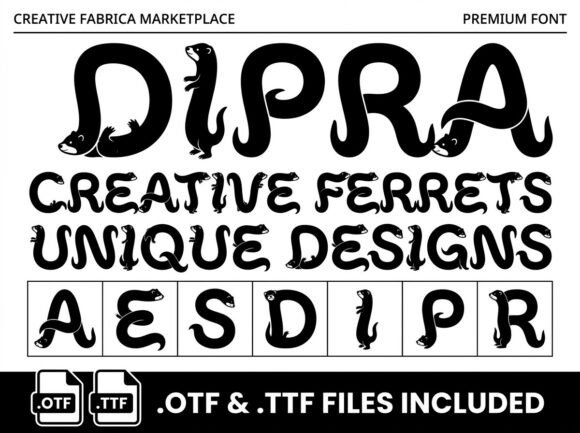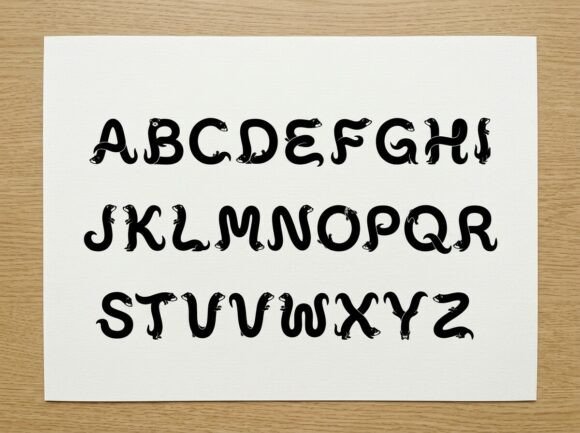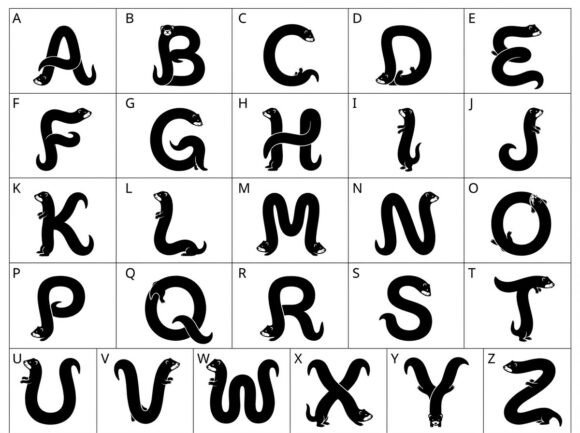
Celebrate the Playful Spirit of Nature with Dipra Font
Are you looking for a unique display font that combines typography with whimsical illustration? Look no further than Dipra, a bold, rounded typeface that artfully integrates the fluid, elongated silhouette of a ferret into each character. This exceptional font is perfect for designers and crafters seeking to add a touch of handcrafted warmth and imaginative, animal-inspired charm to their visual identity.
The Inspiration Behind Dipra
Dipra’s design is inspired by the playful and mischievous energy of ferrets. Each character in the font features a ferret integrated into its design, from playful tails looping through stems to curious faces peeking out of bowls. The result is a font that captures the authentic, lively spirit of these beloved creatures.
Dipra is an ideal choice for a variety of creative projects, including:
- Veterinary clinic branding: Add a playful touch to your veterinary clinic’s logo and marketing materials with Dipra’s unique and engaging design.
- Exotic pet shop logos: Create a memorable and eye-catching logo for your exotic pet shop with Dipra’s bold and whimsical font.
- Children’s animal books: Bring your children’s animal books to life with Dipra’s imaginative and engaging design.
- Quirky merchandise design: Add a touch of personality to your merchandise designs with Dipra’s playful and charming font.
Key Features of Dipra Font
Dipra font offers a range of key features that make it an exceptional choice for designers and crafters, including:
- Unique and playful design: Each character in Dipra features a ferret integrated into its design, creating a unique and playful look.
- Bold and rounded typeface: Dipra’s bold and rounded typeface makes it perfect for display purposes, such as headlines and titles.
- Handcrafted warmth: Dipra’s design delivers a sense of handcrafted warmth, making it perfect for projects that require a personal touch.
- Imaginative and animal-inspired charm: Dipra’s imaginative and animal-inspired design adds a touch of charm to any project.
Why Choose Dipra Font?
There are many reasons why designers and crafters should choose Dipra font for their creative projects, including:
- Stand out from the crowd: Dipra’s unique and playful design ensures that your project will stand out from the crowd.
- Engage your audience: Dipra’s imaginative and engaging design is perfect for engaging your audience and capturing their attention.
- Add a personal touch: Dipra’s handcrafted warmth and playful design add a personal touch to any project.
- Versatility: Dipra is versatile and can be used for a range of creative projects, from branding and marketing materials to children’s books and merchandise design.
Dipra font is a unique and imaginative display font that combines typography with whimsical illustration. Its playful and mischievous design makes it perfect for a range of creative projects, from veterinary clinic branding to quirky merchandise design. With its handcrafted warmth and imaginative, animal-inspired charm, Dipra is an exceptional choice for designers and crafters seeking to add a touch of personality to their visual identity.
Get Creative with Dipra Font
So why not get creative with Dipra font and bring a touch of playful spirit to your next project? With its unique and engaging design, Dipra is sure to capture the attention of your audience and leave a lasting impression.